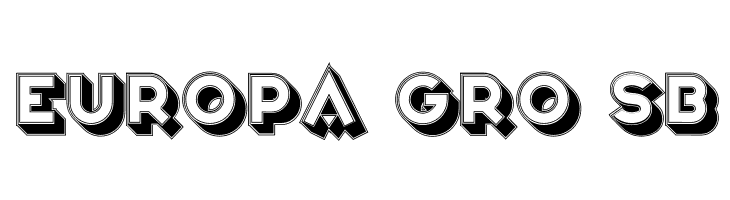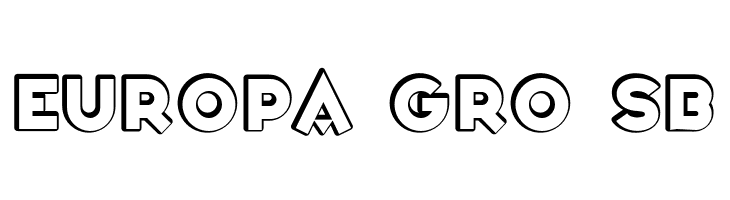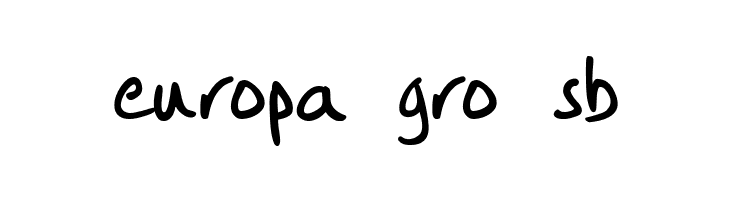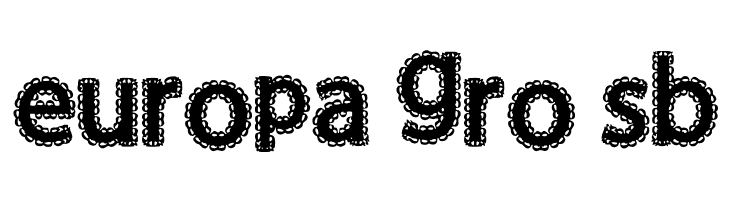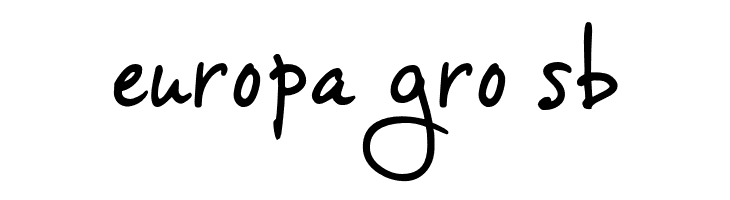
A bold, geometric font with outlined letters for a three-dimensional effect.
A bold, geometric font with a three-dimensional effect and strong visual impact.
A bold, three-dimensional display font with a dramatic, theatrical style.
A bold, three-dimensional font with a dynamic, theatrical style.
A bold, handwritten font with a playful and casual style.
A playful, handwritten font with irregular strokes and a casual, dynamic appearance.
A bold, geometric font with a futuristic and modern aesthetic.
A clean, modern sans-serif font with uniform stroke weight and rounded edges.
A bold, modern typeface with clean lines and strong legibility.
A modern, italic sans-serif font with clean lines and a dynamic slant.
A bold, brushstroke-style font with an energetic and artistic appearance.
A playful, doodle-inspired font with bold, rounded characters and cartoonish expressions.
A decorative Gothic font with intricate, angular detailing and a medieval aesthetic.
A bold, textured font with a vintage, distressed appearance.
A distressed, vintage typewriter-style font with a rugged and nostalgic appearance.
A bold, distressed font with a hand-drawn, textured appearance.
A playful, decorative font with bubble-like outlines and a whimsical style.
A casual, handwritten-style font with a lively and personal touch.
A casual, handwritten font with a playful and informal style.
An ornate, Gothic-style font with elaborate flourishes and sharp, angular lines.
An ornate Blackletter font with intricate, gothic-inspired designs.
A modern, geometric font with thin, elongated strokes and a minimalistic design.
A bold, antique-style font with a rugged, hand-crafted appearance.